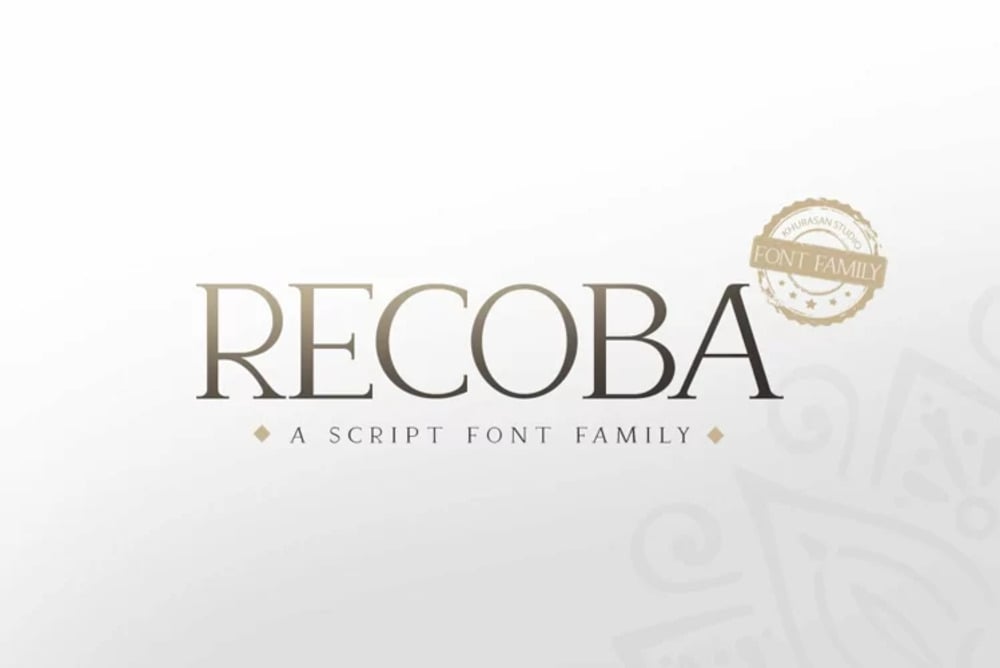
Recoba Font
Recoba is a bold and dynamic display font with a sharp, angular style. Its strong, geometric forms and slanted letterforms give it a sense of speed and energy, making it ideal for sports branding, action-oriented designs, and projects needing a powerful visual impact. Recoba is perfect for headlines, titles, and other short text elements where its distinctive character can grab attention and convey a sense of strength and dynamism.